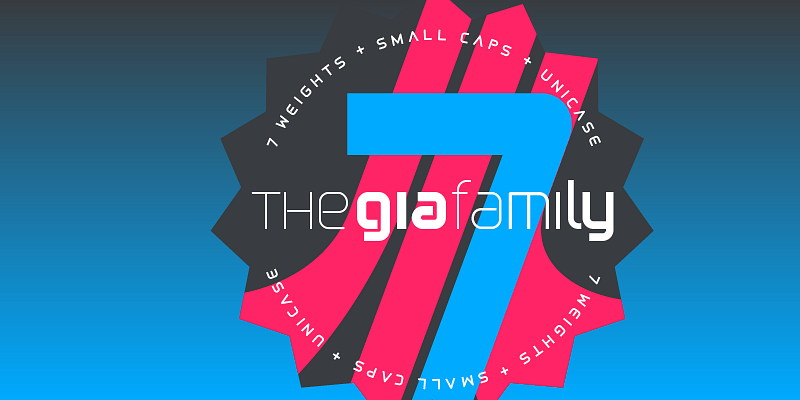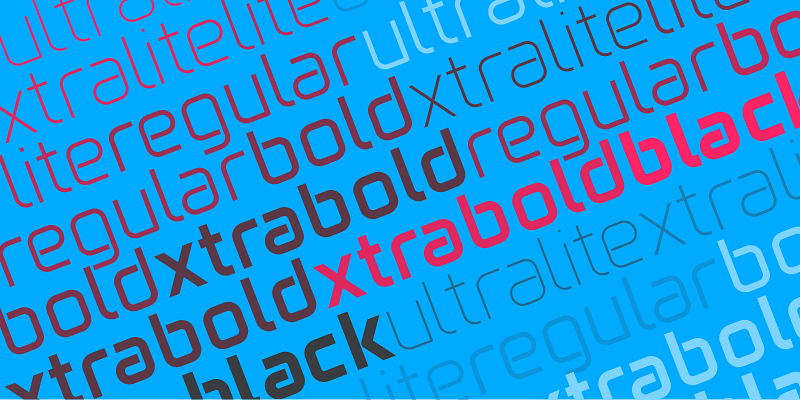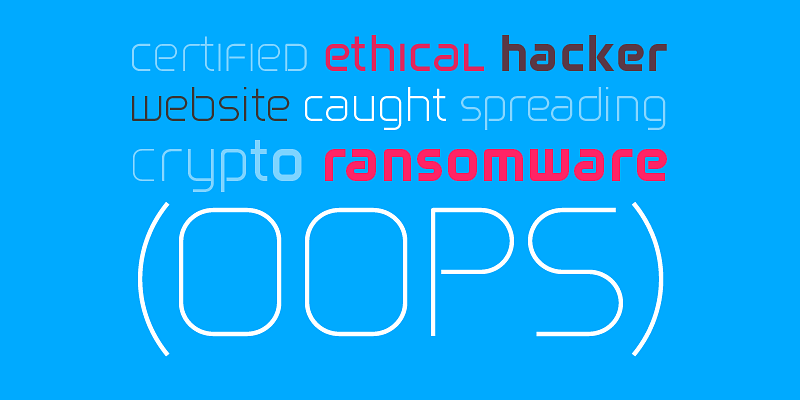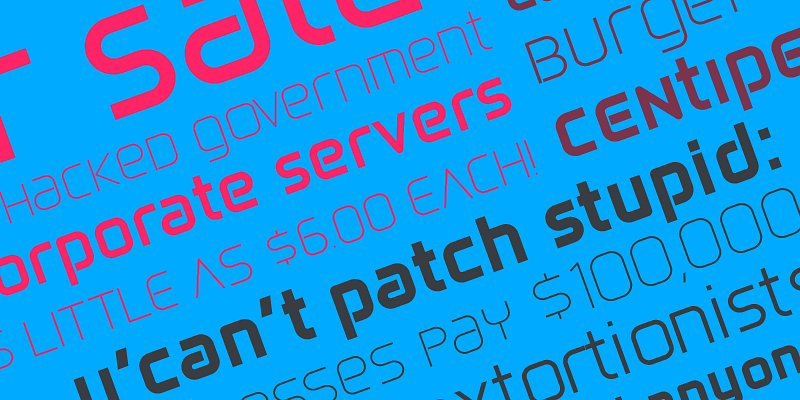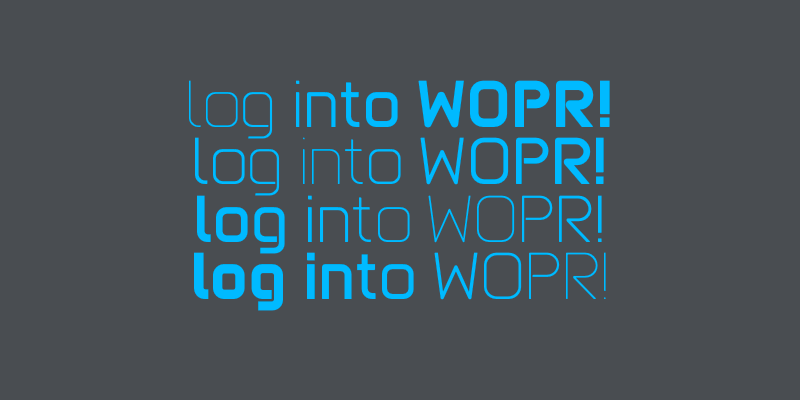
Gia Variable is a retro-modern family designed after the iconic letterforms of the first digital tech revolution of the 1960s to 1980s. These sinewy, curved letterforms popped up in the era’s logotypes, music videos, and upright video games: NASA, The Buggles, Atari, Pong, Sega, Namco, Stern, Devo, and Apple. Gia pays homage to that letterform, and is named after Gia Carangi, the iconic face of early 1980s pop fashion.